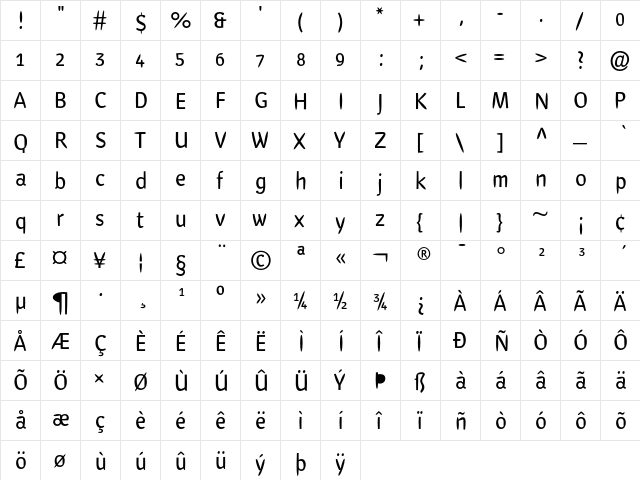
HavannaEF Regular
Design Context for HavannaEF Typeface
HavannaEF is a composed and adaptable typeface that performs quietly and consistently across a wide range of design contexts.